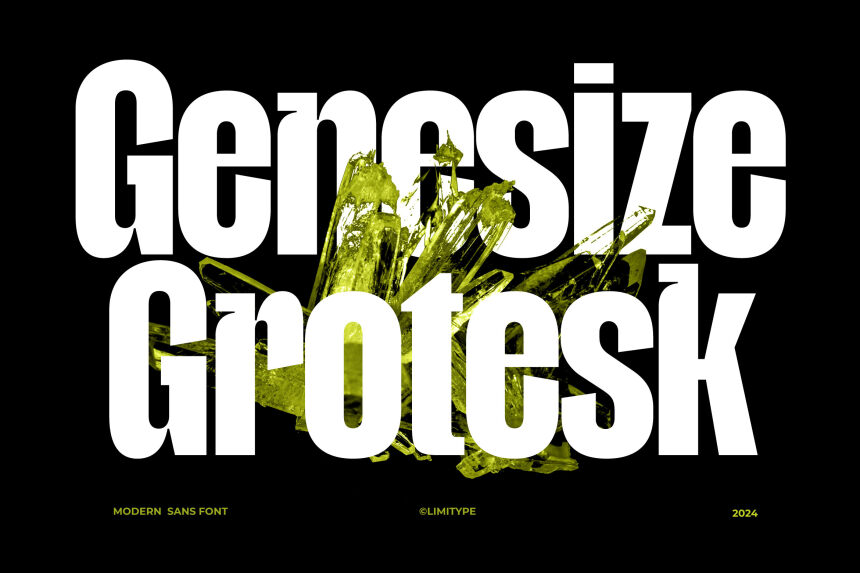
Crafted by the skilled designer Muhammad Muammar of Limitype, Genesize Grotesk exudes a striking presence. This bold and condensed font captivates with its refined geometry, showcasing a harmonious balance of sharp edges and subtle curves. The robust weight lends an air of authority, while the condensed width adds a sense of efficiency and sophistication. This typographic gem radiates a unique blend of strength and elegance, resonating with a wide range of design aesthetics.
Genesize Grotesk's versatility shines through its multifaceted applications. Its bold, condensed form makes it an exceptional choice for impactful headlines, eye-catching logos, and powerful branding initiatives. The font's legibility and formal qualities also lend themselves well to editorial design, corporate communications, and even packaging, where a sense of confidence and professionalism is paramount.